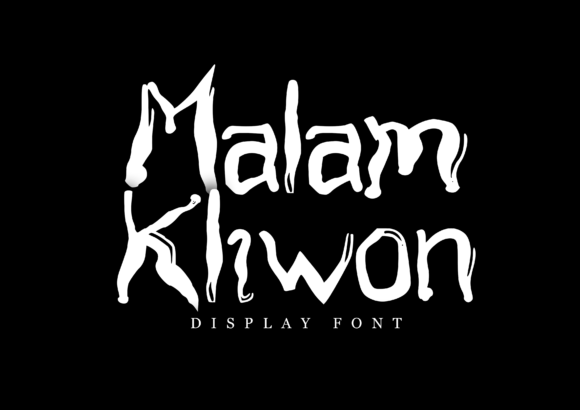
**Malam Kliwon: The Font That Will Haunt Your Designs**
Introducing Malam Kliwon, the display font that will add a touch of terror to your creative projects. Inspired by the chilling atmosphere of zombie movies, this typeface oozes a spine-tingling horror vibe that is sure to make your designs stand out from the crowd.
Imagine the perfect font for a Halloween poster, a metal band logo, or an album cover that screams "danger." Malam Kliwon is that font, with its sharp angles, jagged edges, and unsettling curves. Its presence will evoke a sense of fear and anticipation, drawing your audience into the depths of your imagination.
But Malam Kliwon is not just for the macabre. Its versatility extends to any design project that demands a dramatic and unforgettable impact. Use it to create eye-catching headlines, chilling movie posters, or terrifying video game graphics. The possibilities are endless, limited only by the boundaries of your imagination.
So, if you're looking for a font that will send shivers down the spines of your audience, look no further than Malam Kliwon. Its haunting beauty will captivate and terrify, leaving an unforgettable mark on all who encounter it.